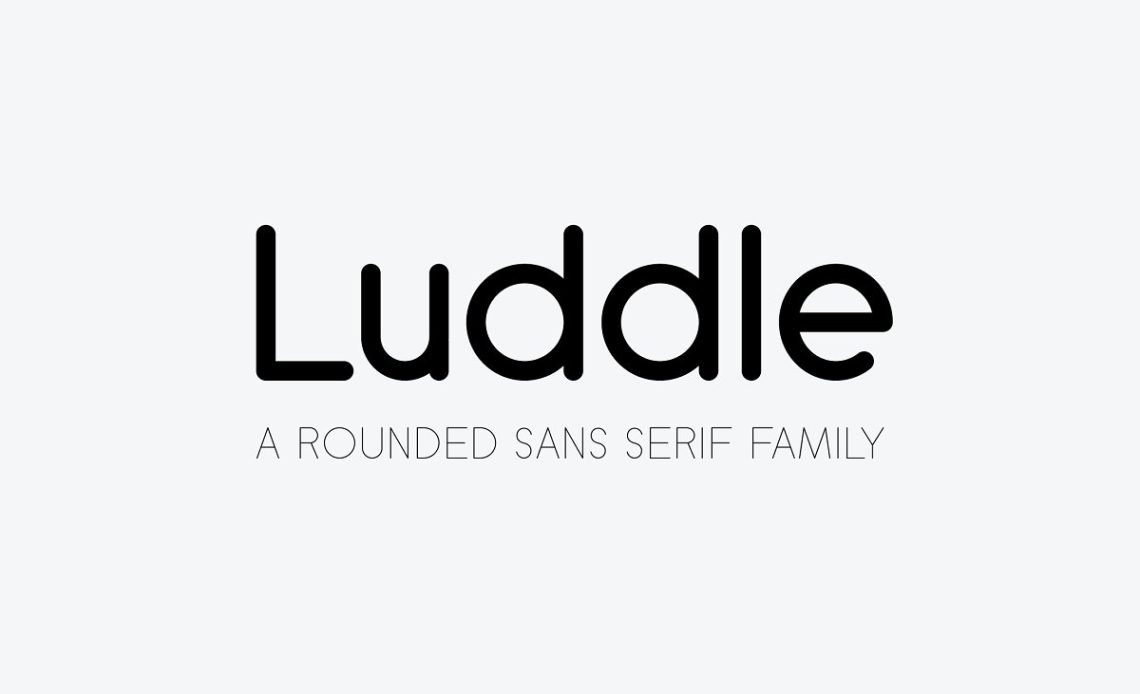
Introducing the Luddle Font Family - the perfect blend of modernity and elegance to elevate your design projects. Created by the talented Kassy O'Shea, this rounded geometric sans serif collection is a true masterpiece that will captivate your audience from the very first glance.
With its versatile range of styles, Luddle offers endless possibilities for creative expression. Whether you're looking for a bold statement or a subtle touch of sophistication, this font family has got you covered. The regular, bold, light, and ultra-light variations have been meticulously crafted to ensure seamless integration into any design concept.
But it's not just about aesthetics - Luddle is designed with usability in mind. Every uppercase and lowercase letter, along with punctuation marks, is meticulously designed to provide a comprehensive set of 210 glyphs. This attention to detail ensures that your message is conveyed flawlessly, no matter the language or context.
When you choose Luddle, you're not just getting a font - you're unlocking a world of possibilities. Whether you're a professional designer or a DIY enthusiast, this font family will empower you to create stunning visuals that leave a lasting impression. From eye-catching logos to captivating headlines, Luddle will effortlessly elevate your work to new heights.